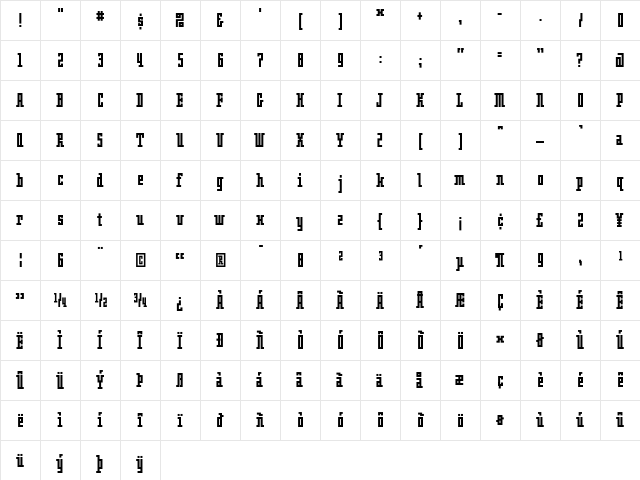
OblongBold Regular
Design Context for OblongBold Typeface
OblongBold takes a measured approach to typography — its balanced proportions and neutral character make it a reliable workhorse for both digital and print work. The heavy weight commands attention and anchors typographic hierarchies.